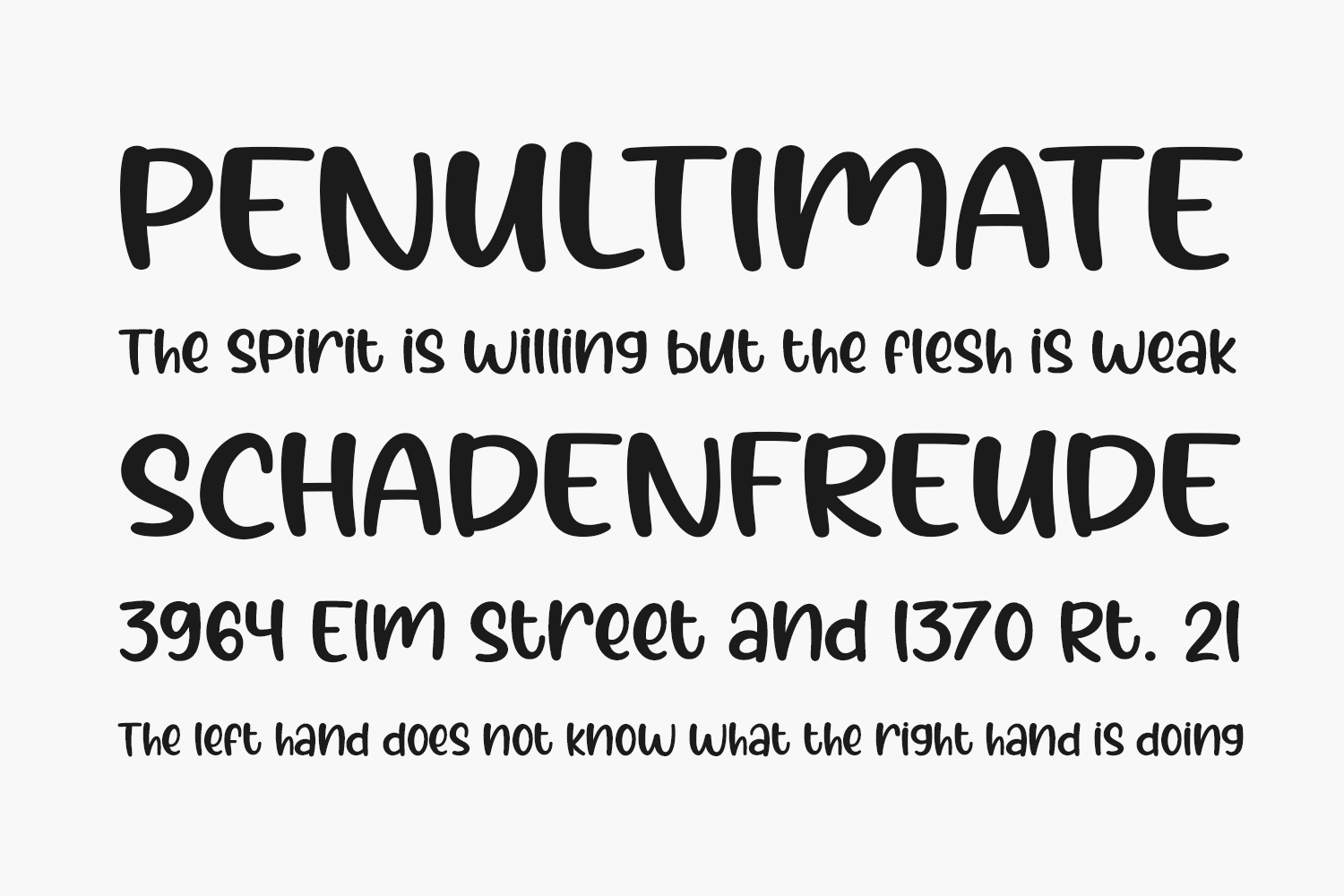
Introducing Choose Love Free Font, a graceful and elegant display font that is ideal for crafting captivating chalkboard quotes and educational resources. With its genuine appearance, this font effortlessly infuses your designs with a sense of authenticity and realism. Elevate your creations with the delicate charm of this font. Choose Love Free Font is free for personal or commercial use.